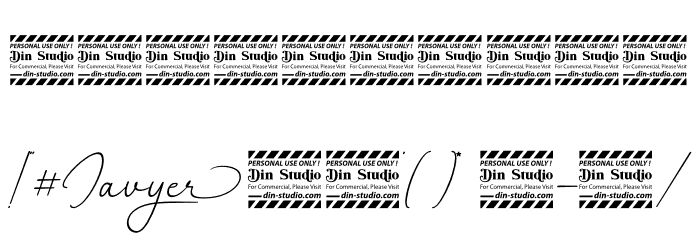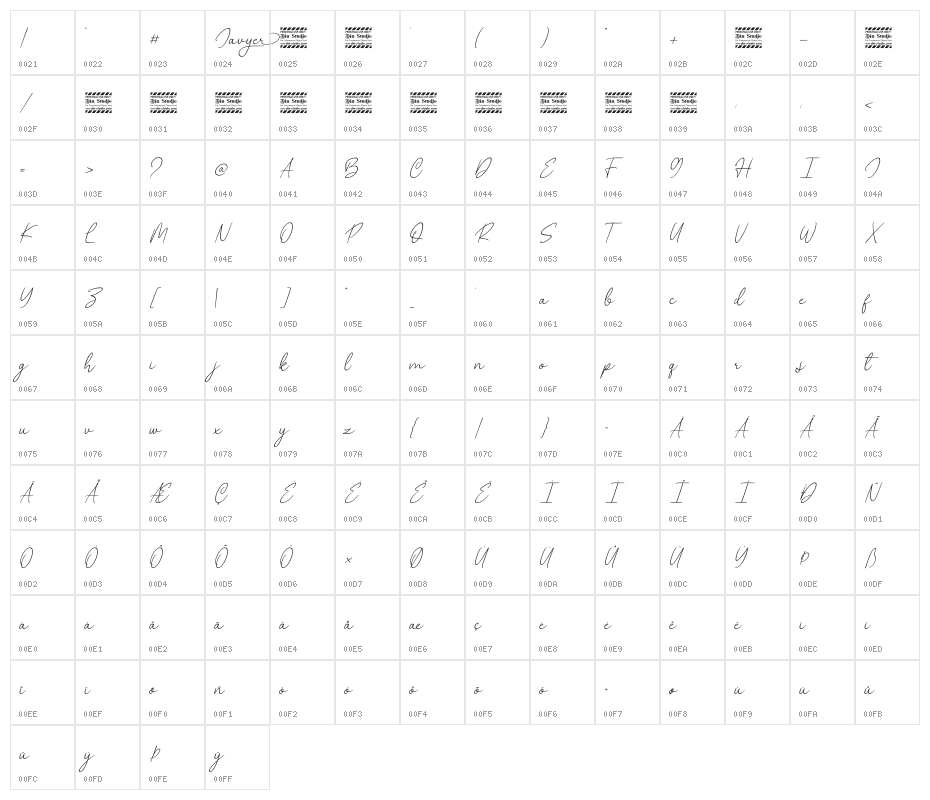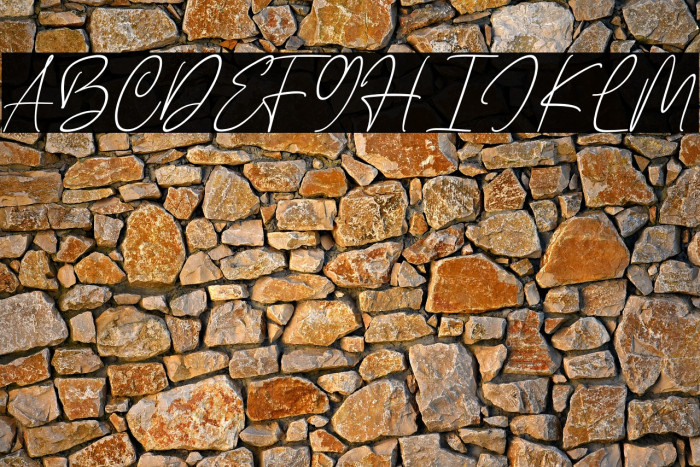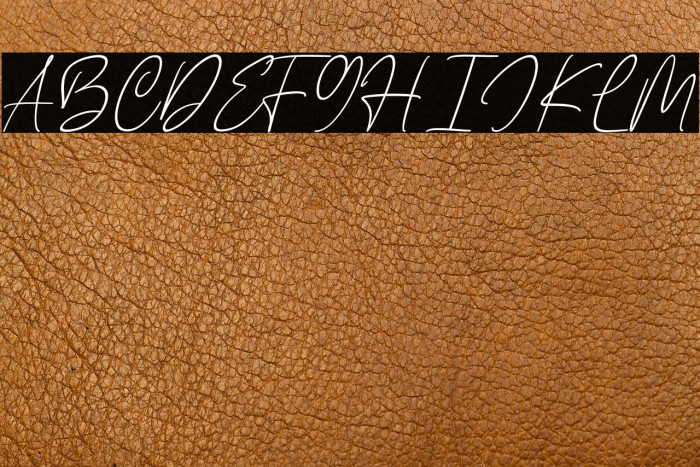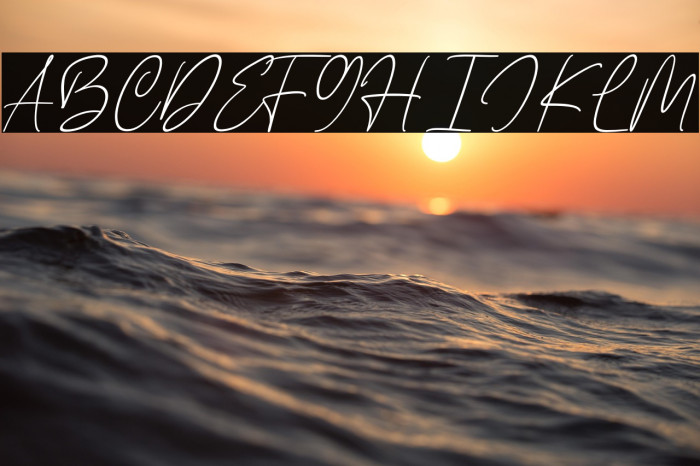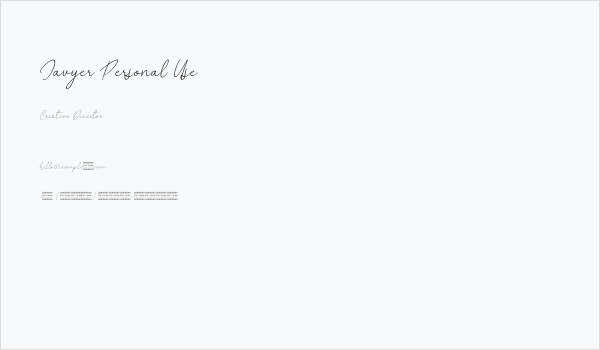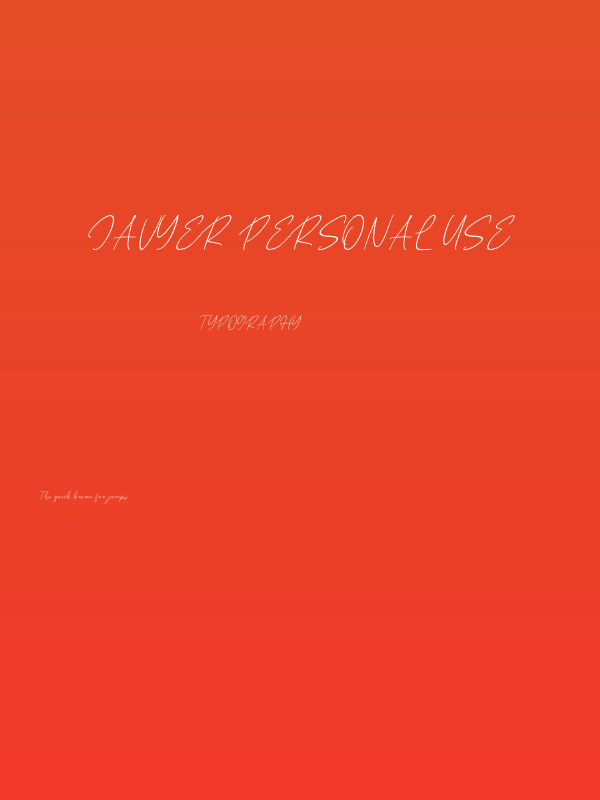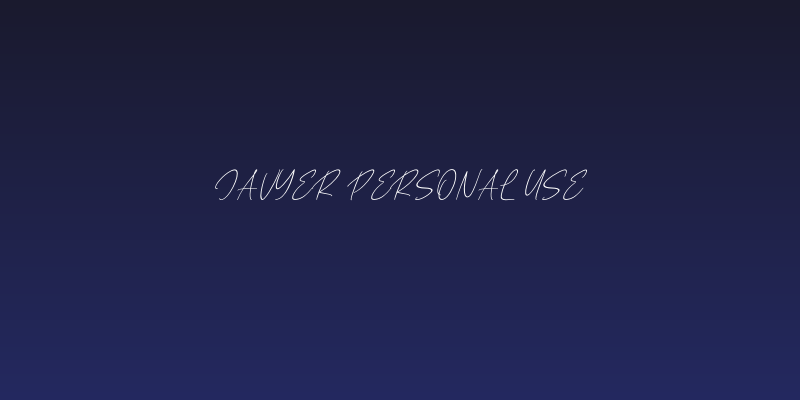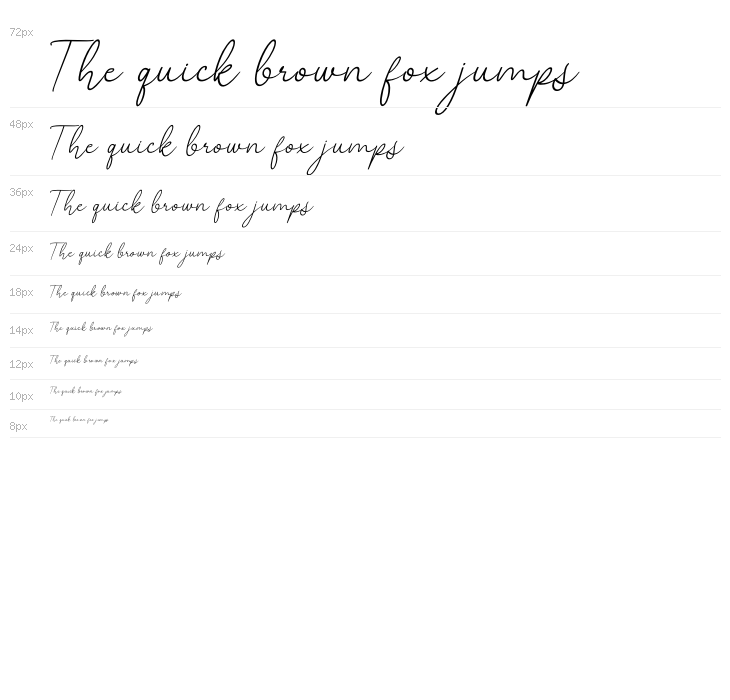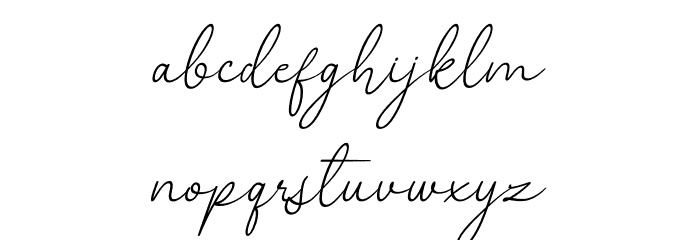
Javyer Personal Use Font
Javyer Personal Use Description
This elegant script font features a flowing, cursive style with a modern touch. The letters are delicately connected, creating a seamless and sophisticated appearance. The uppercase letters are slightly larger and more ornate, while the lowercase letters maintain a consistent, graceful flow. The font exhibits a natural handwritten quality, with smooth curves and subtle variations in stroke width, giving it a personal and artistic feel. It is ideal for projects that require a touch of elegance and sophistication, such as invitations, branding, and personal stationery.
| Proposed Projects | Ideal for wedding invitations, branding, personal stationery, and elegant logos. |